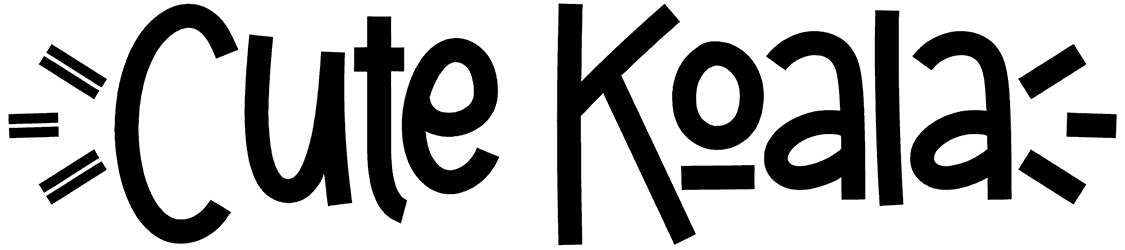
Cute Koala Font
If you’re lucky, you won’t need any digits or punctuation in your next typography, because that’s how you’ll be fine working with Cute Koala. Let everyone fall in love with its warm tone, making sure they’ll be into whatever this kawaii font has to say.
Plus, you can have as much fun as you want with the 2 styles of this cartoon font by borrowing its cool summer vibes for your party posters, kids’ games, clothing tags, energy drink labels, etc.